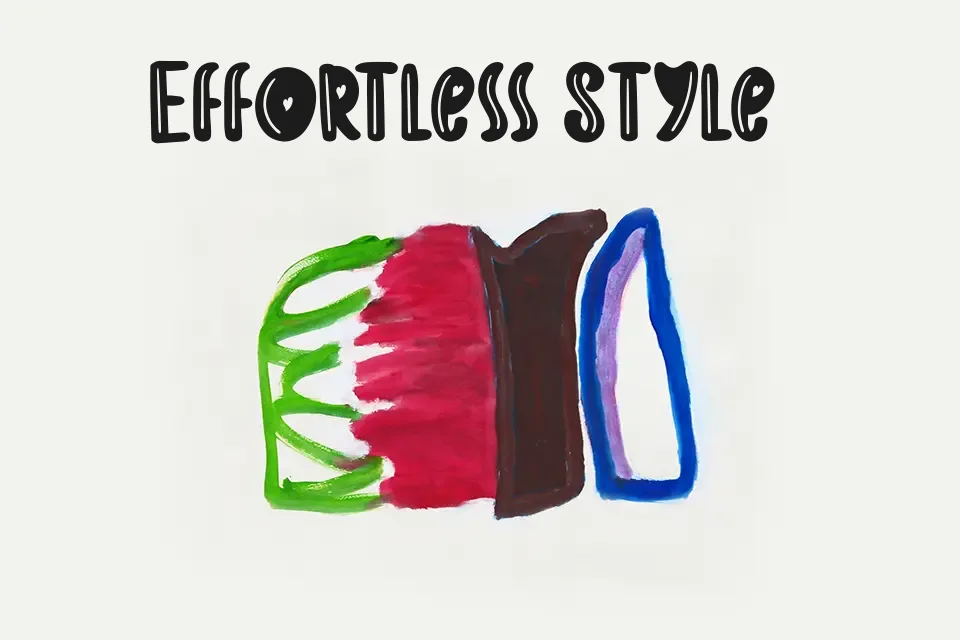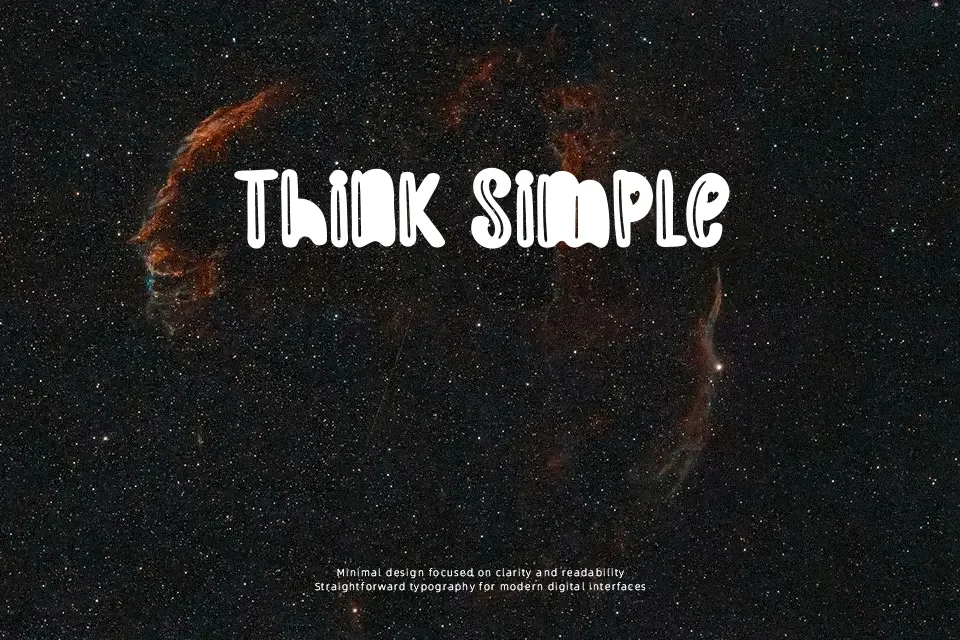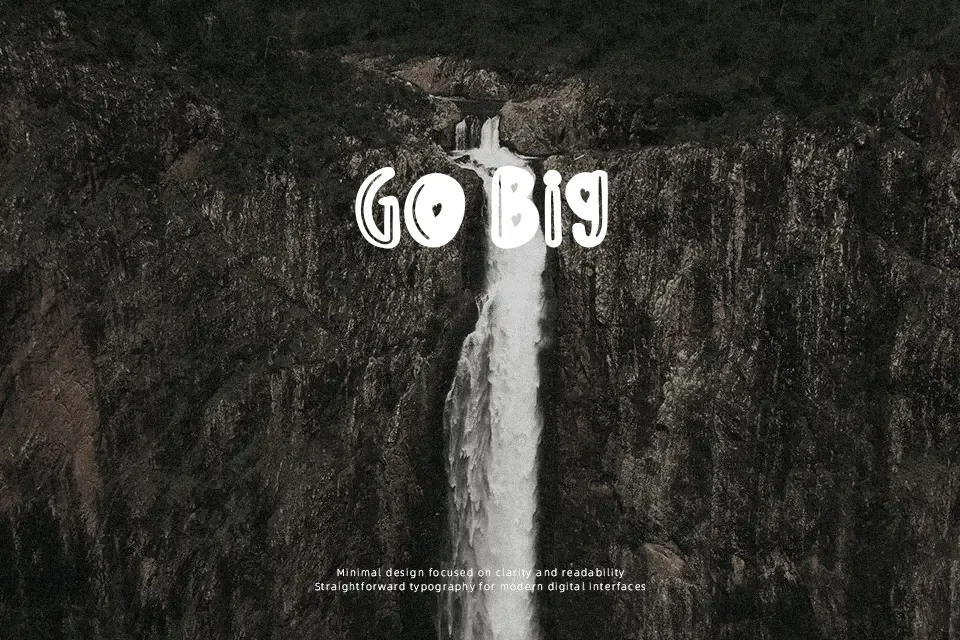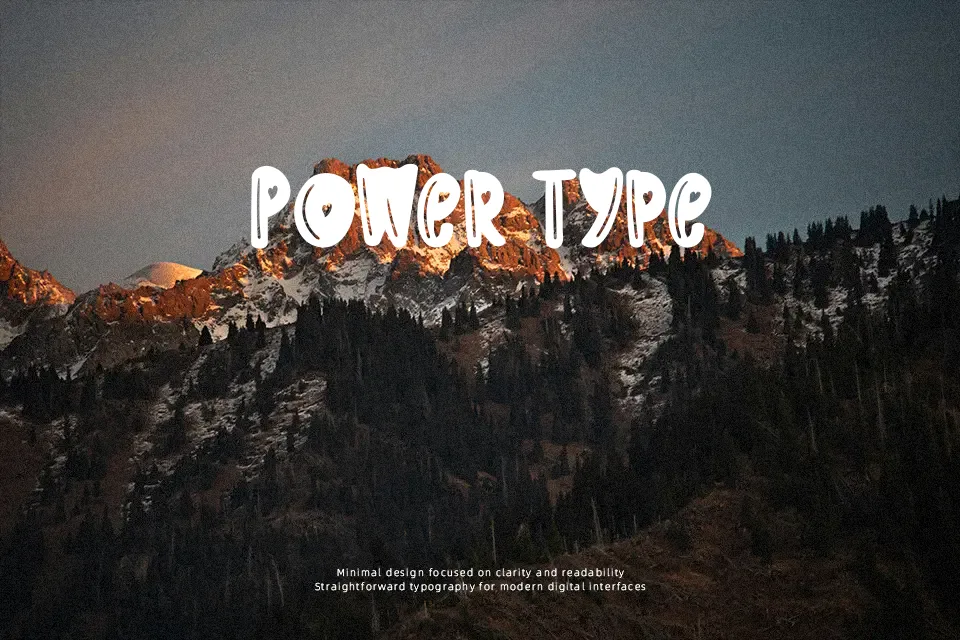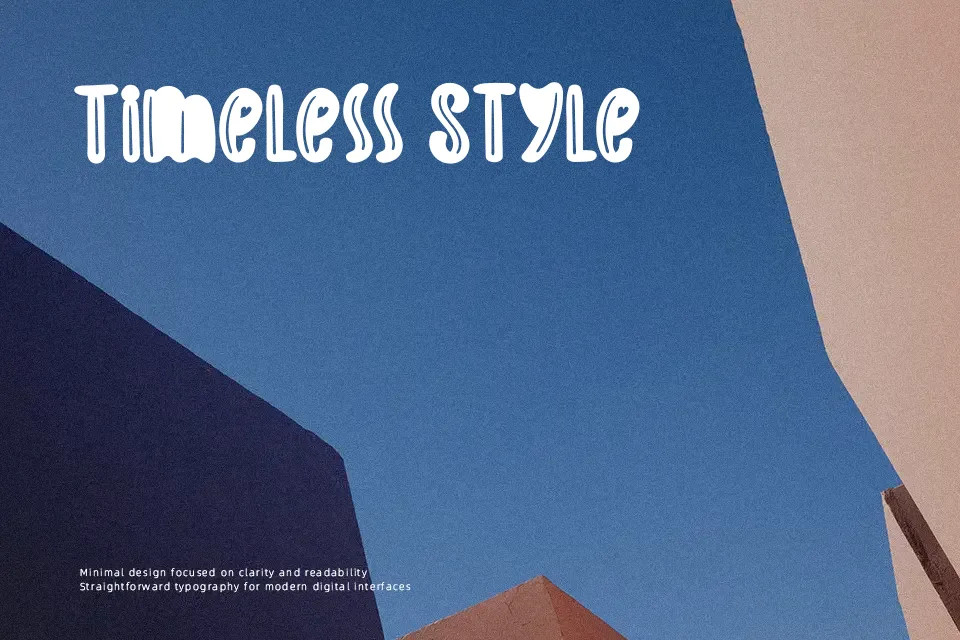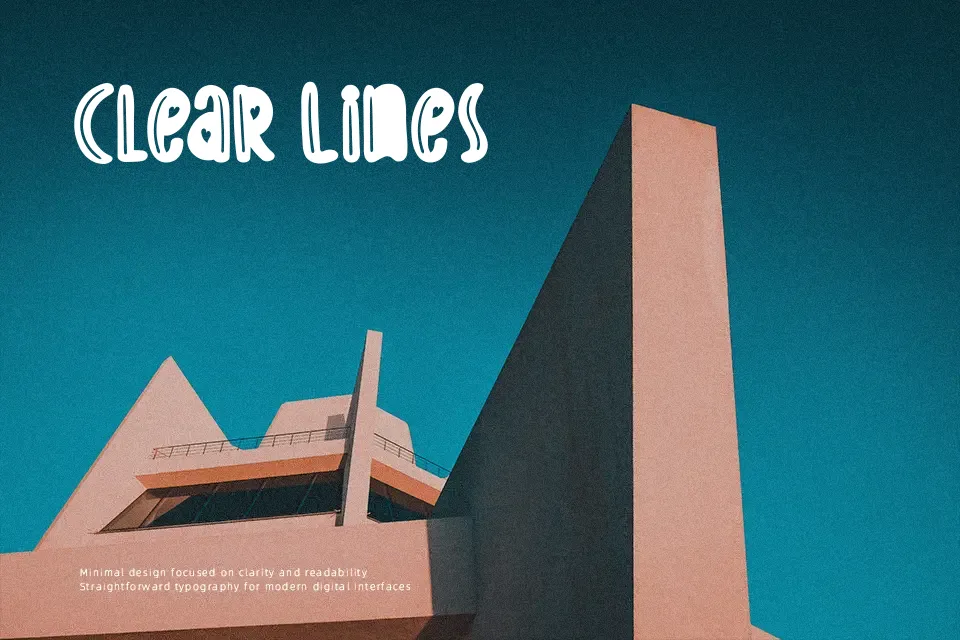
Candy Love Font
Candy Love Font presents an energetic display design defined by heavy stroke weights, soft contour curves, and distinctive heart-themed cutouts. The letterforms maintain uniform proportions with snug horizontal spacing that creates a dense, lively typographic texture. While the thick stems ensure outstanding legibility at larger display scales on merchandise and party invitations, the decorative silhouettes quickly lose clarity when scaled down. Compact counters and pronounced visual embellishments make the typeface less suitable for multi-line body paragraphs or detailed product descriptions. For short headlines and celebratory graphic layouts, the balanced letter weight delivers immediate warmth and playful visual punch.
Best For: Valentine greeting cards, party invitations, bakery packaging, festive merchandise
Not Ideal For: long body text, corporate annual reports, mobile app interface labels, dense editorial layouts
Perfect for headline, kids, and packaging, with a bold and decorative style.